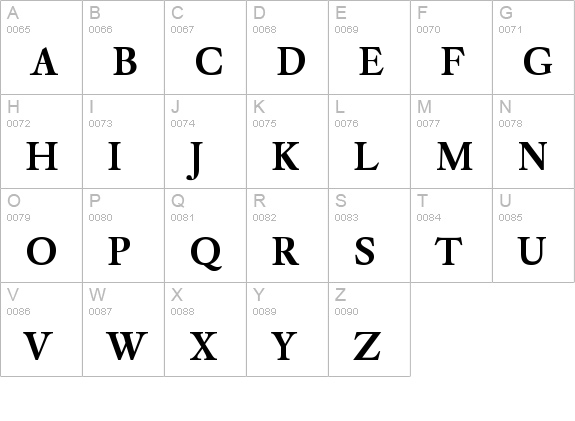
DTLElzevirT-Bold is a strong, high-contrast variant in the DTLElzevirT typeface family \xE2\x80\x94 well suited to headlines, attention-grabbing titles, and strong calls-to-action.
DTLElzevirT-Bold is a striking and versatile font that is sure to make a bold statement in any design project. With its strong and impactful letterforms, this typeface exudes confidence and modernity. The thick strokes and clean lines of DTLElzevirT-Bold give it a bold and commanding presence on the page. What's even better is that DTLElzevirT-Bold is available for free download at FontsMarket.com. This means that you can elevate your designs with this powerful font without having to spend a dime. Whether you're working on a poster, logo, website, or any other creative project, DTLElzevirT-Bold will add a touch of sophistication and professionalism. Download DTLElzevirT-Bold today and take your designs to the next level.